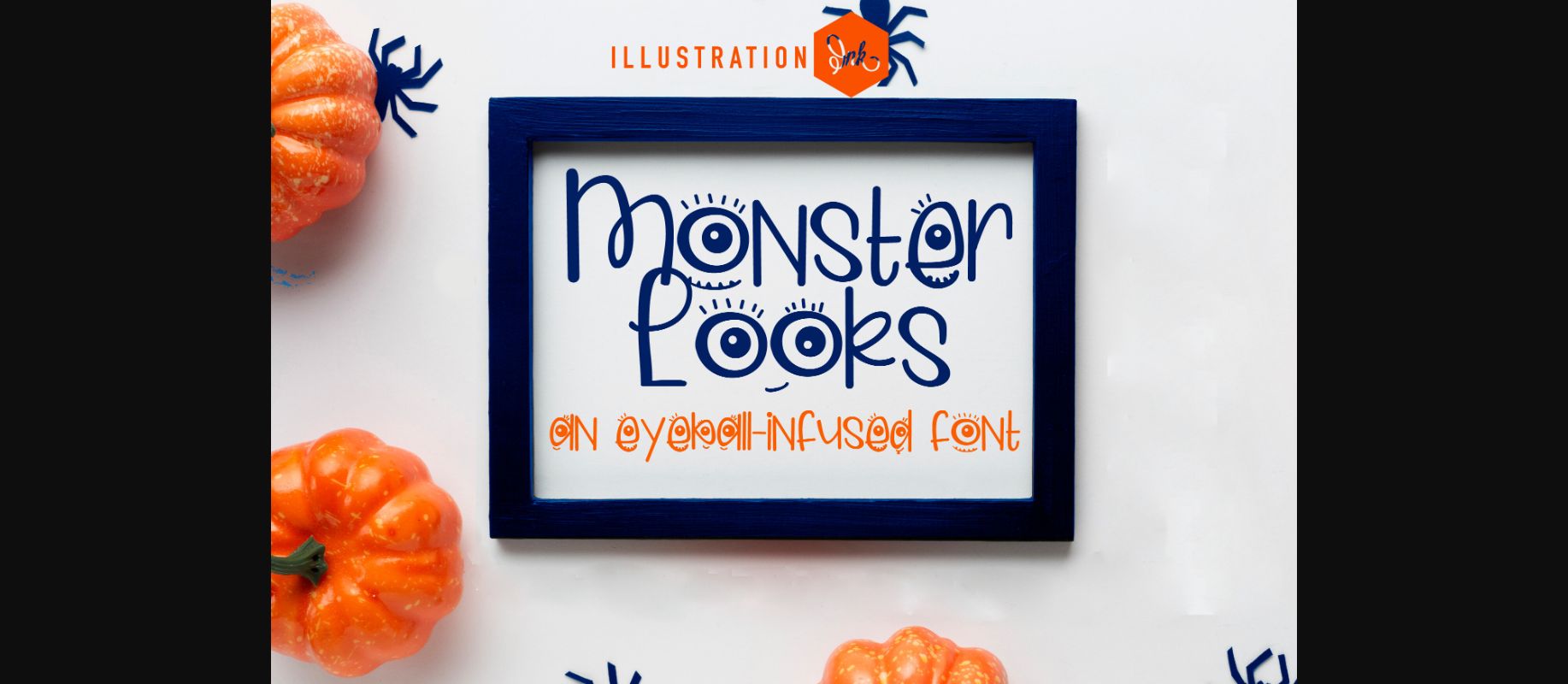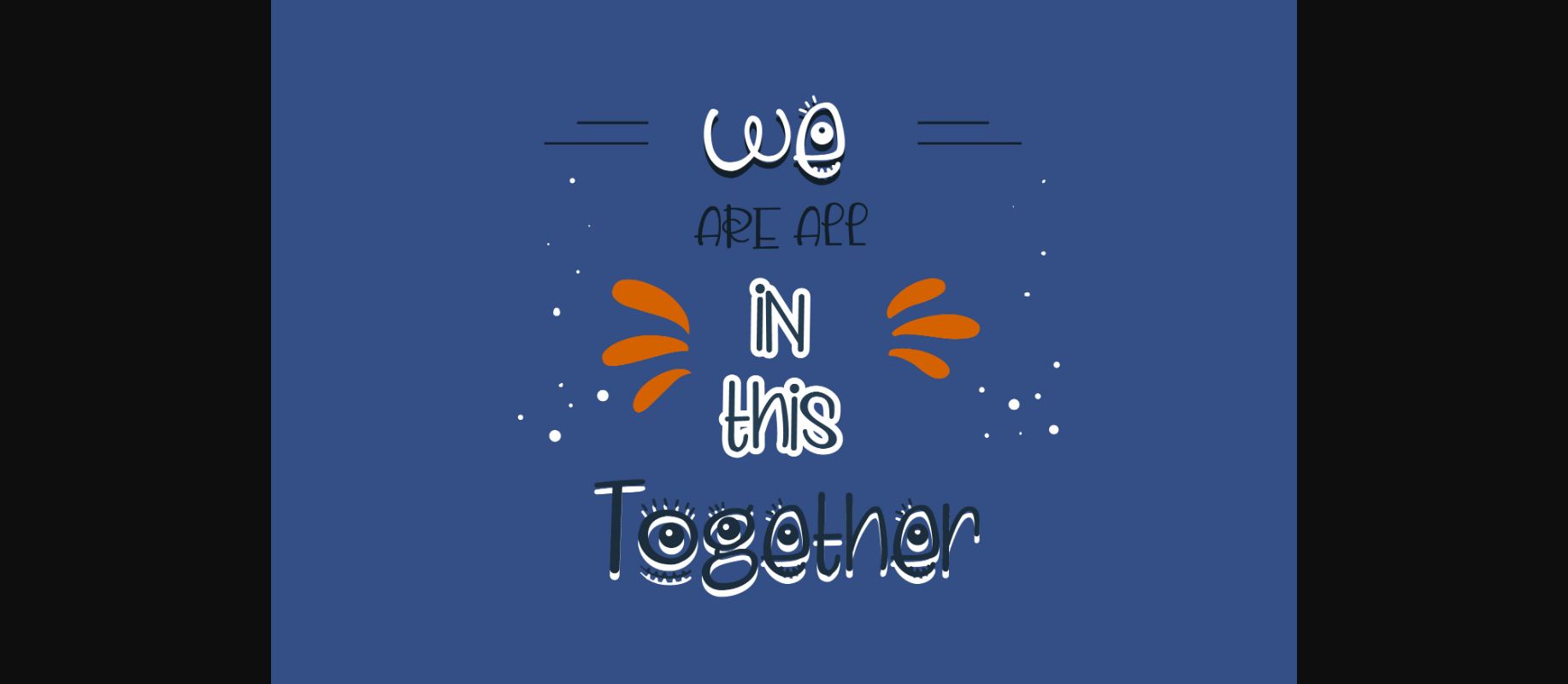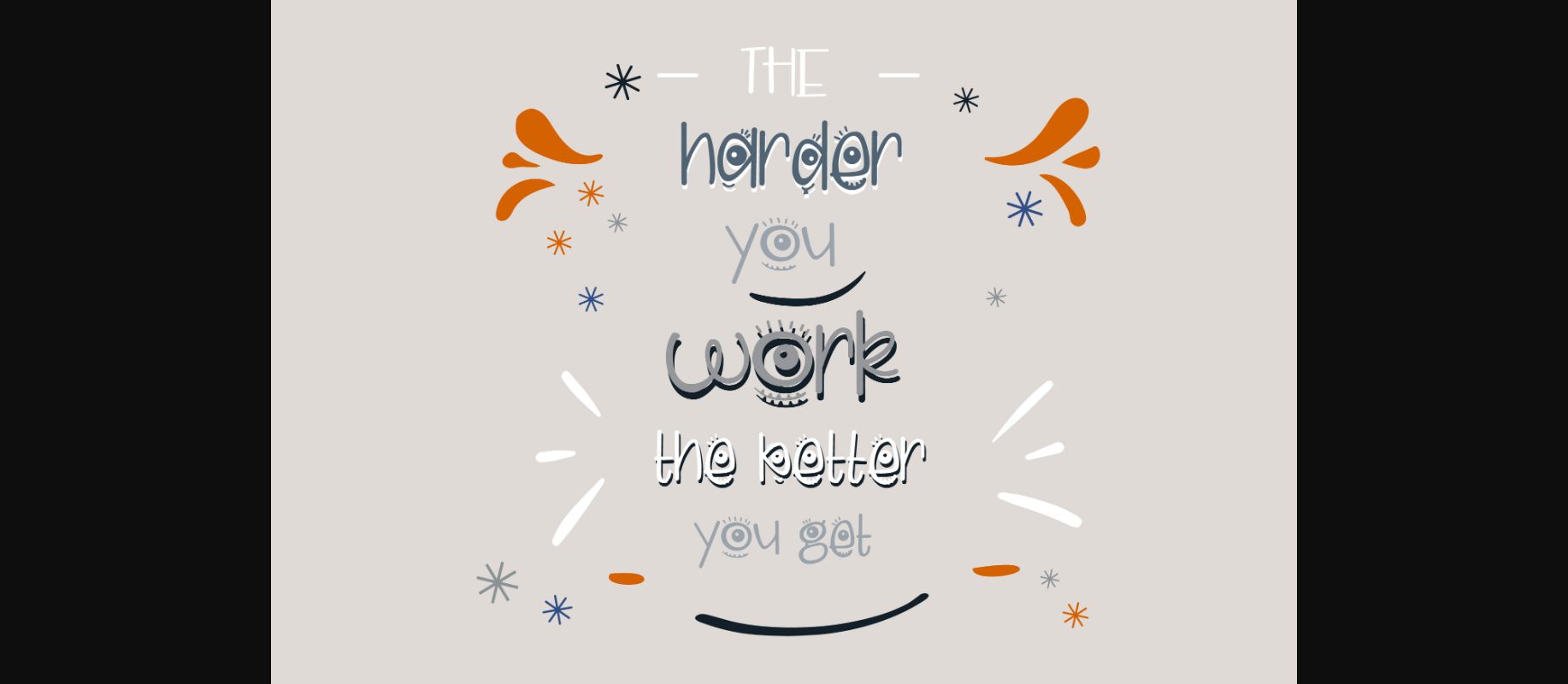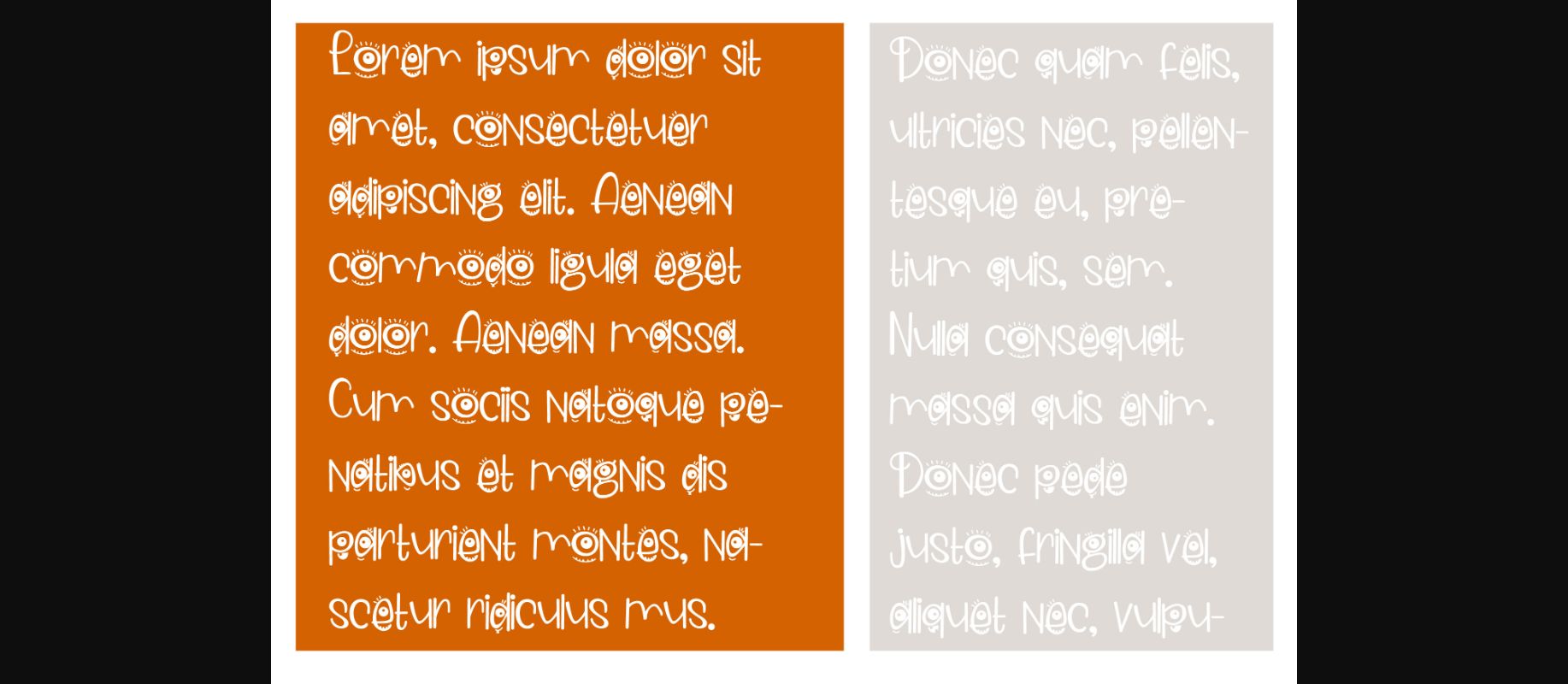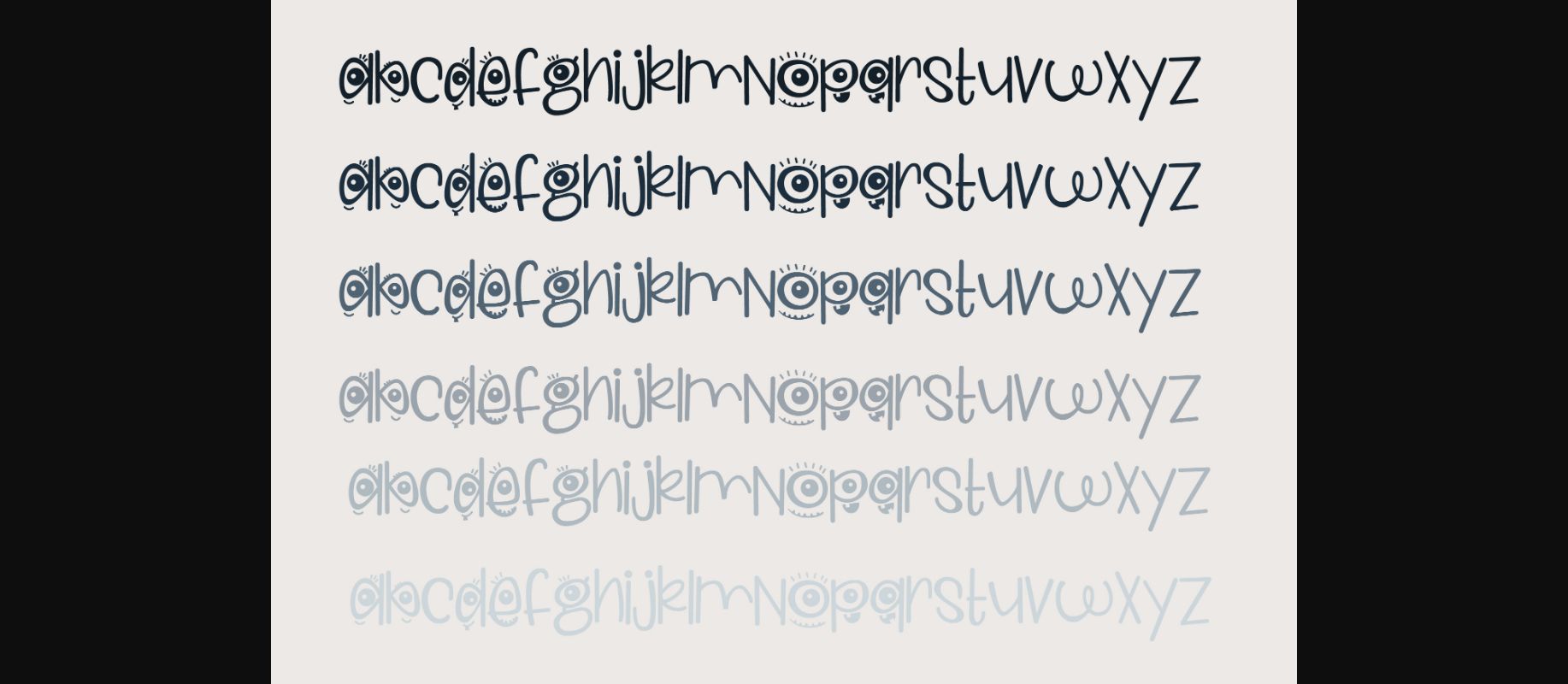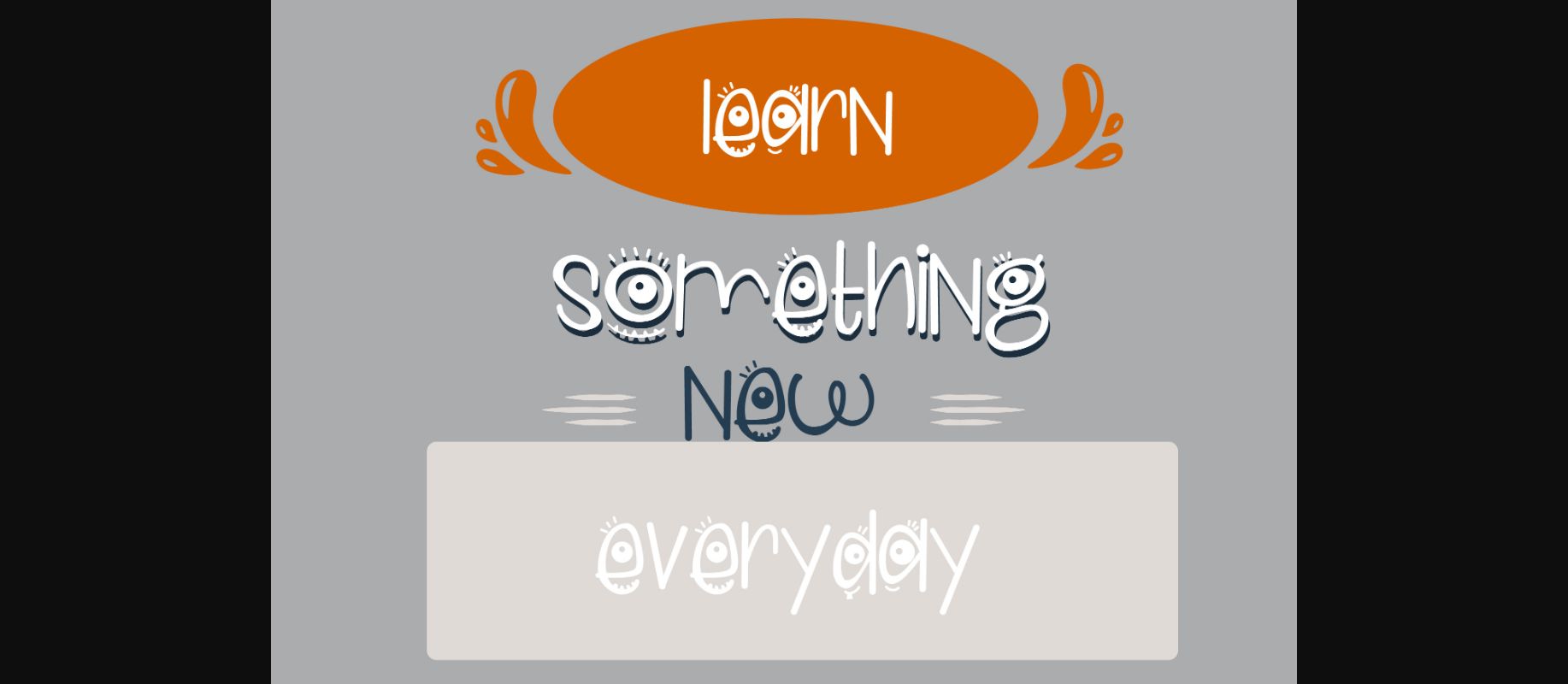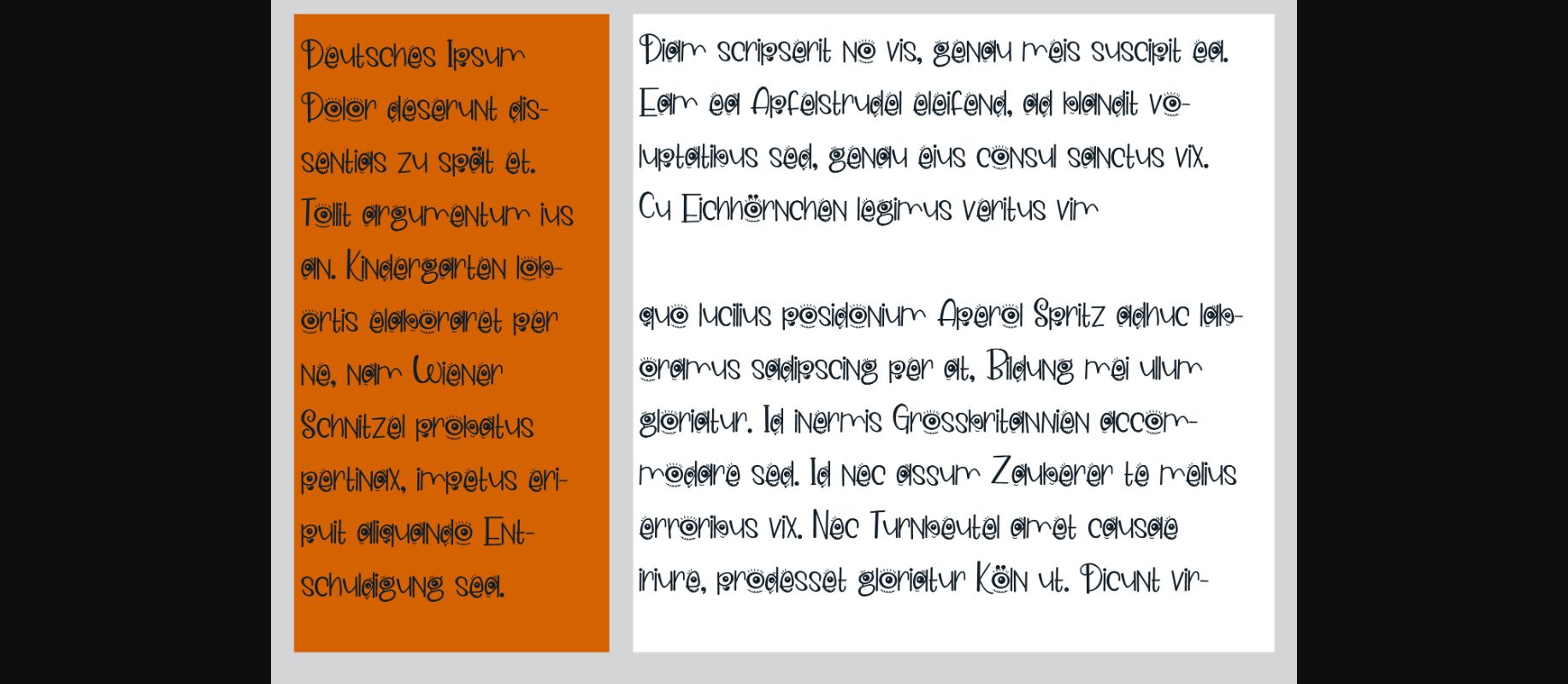
Monster Looks Font
About Monster Looks Font
Monster Looks font is a delightfully playful typeface designed to bring spooktacular fun to your Halloween projects. With its whimsical and eerie letterforms, this font captures the essence of the season, making it perfect for party invitations, posters, and spooky decorations. Get ready to add a touch of Halloween magic to your projects!